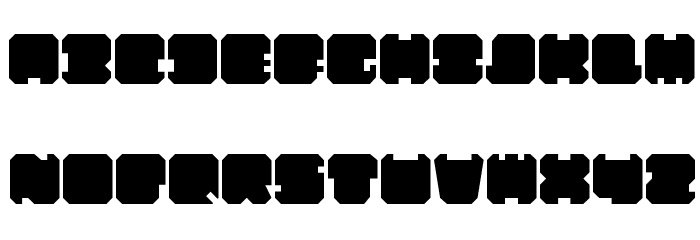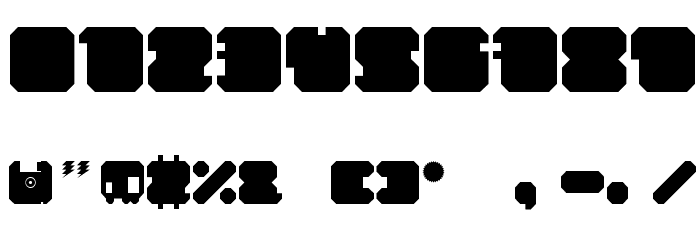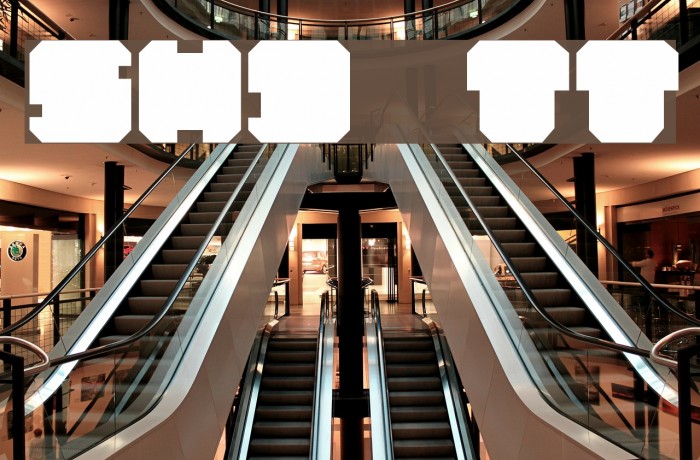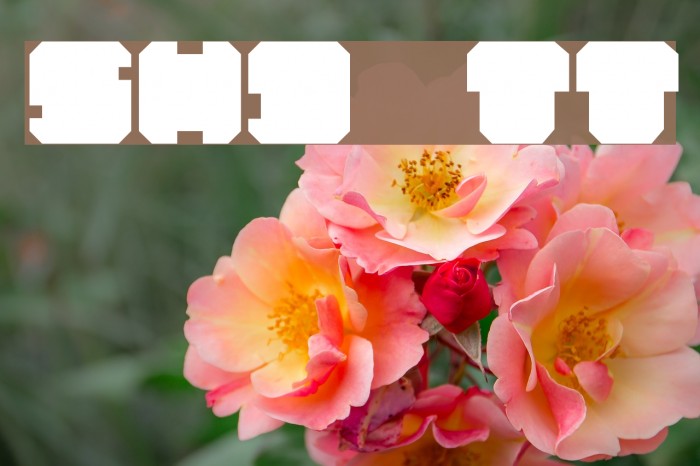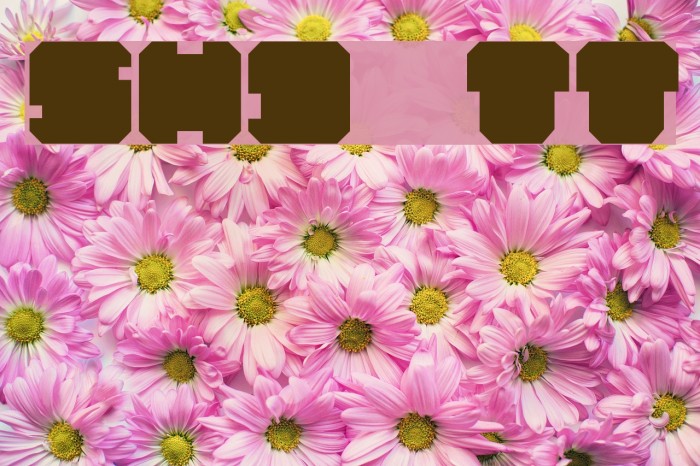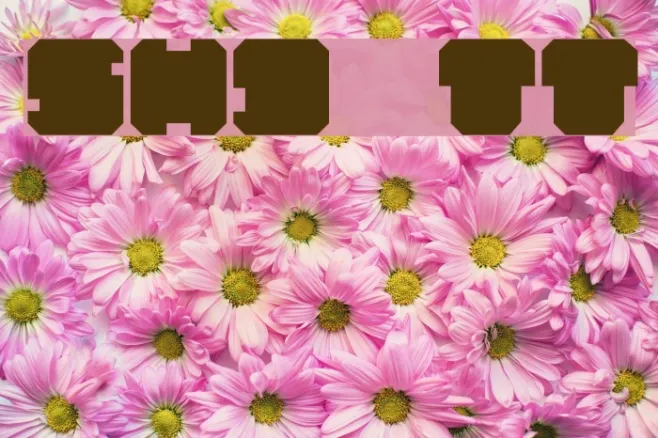
SHD TechnoType Font
This font features a bold, futuristic design with a distinctly geometric and blocky appearance. Each character is crafted with sharp, angular edges and uniform thickness, creating a cohesive and striking visual impact. The uppercase and lowercase letters maintain a consistent style, emphasizing a modern and technological aesthetic. The numbers and special characters are designed to match the overall theme, making the font suitable for digital and tech-related projects. Its boldness and unique shape make it stand out, while the uniformity ensures readability.
A bold, geometric font with a futuristic and tech-inspired design.
- Proposed Projects: Ideal for technology branding, video game titles, sci-fi movie posters, and digital interfaces.